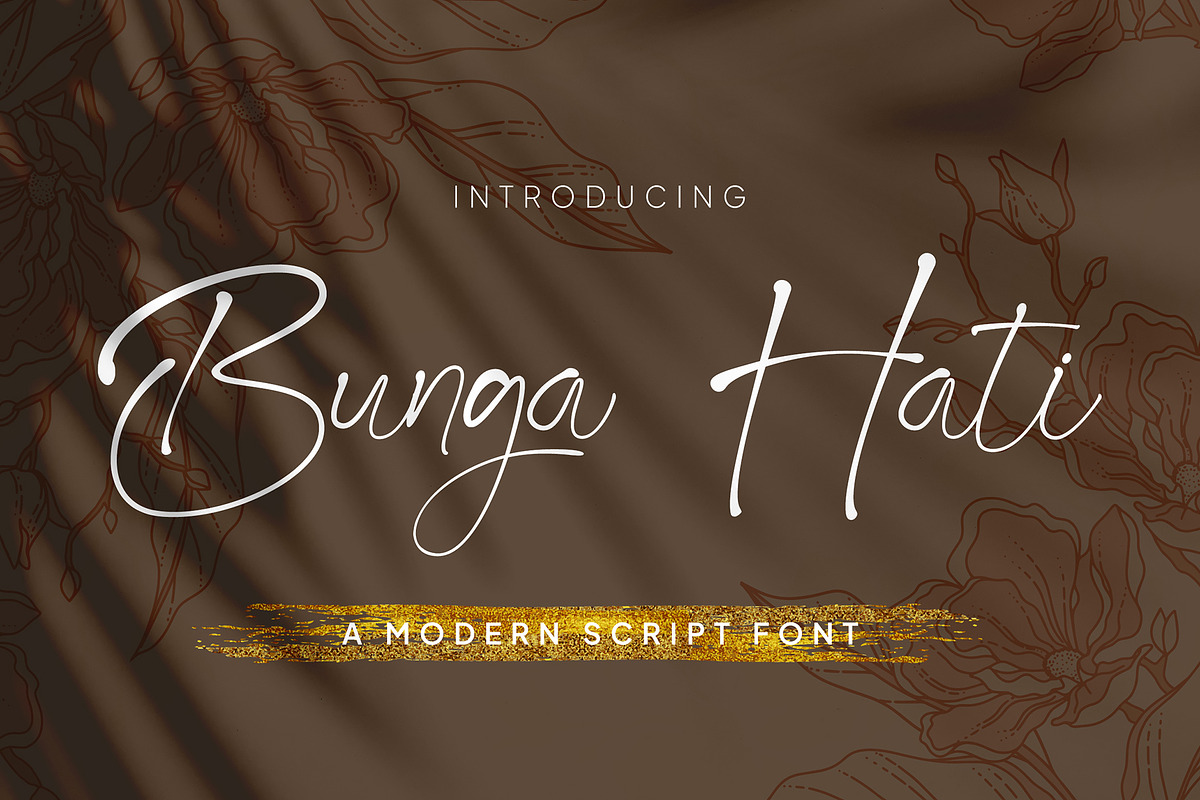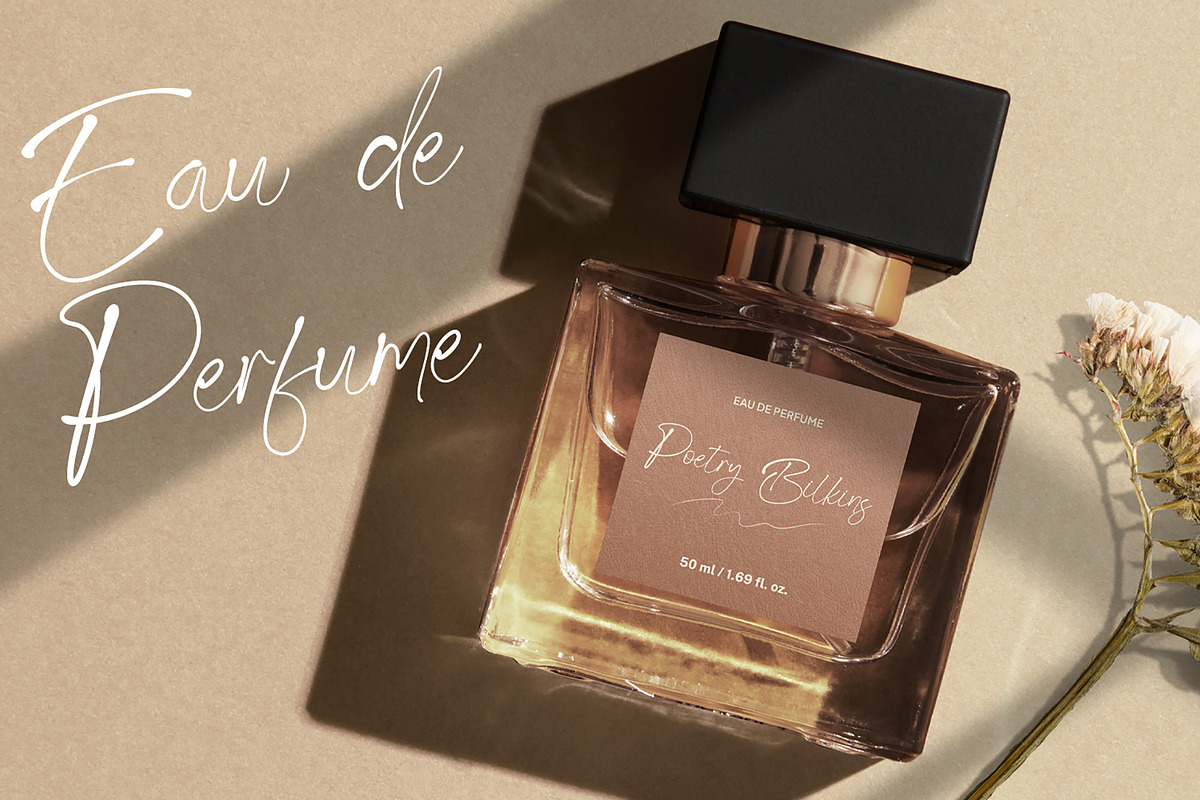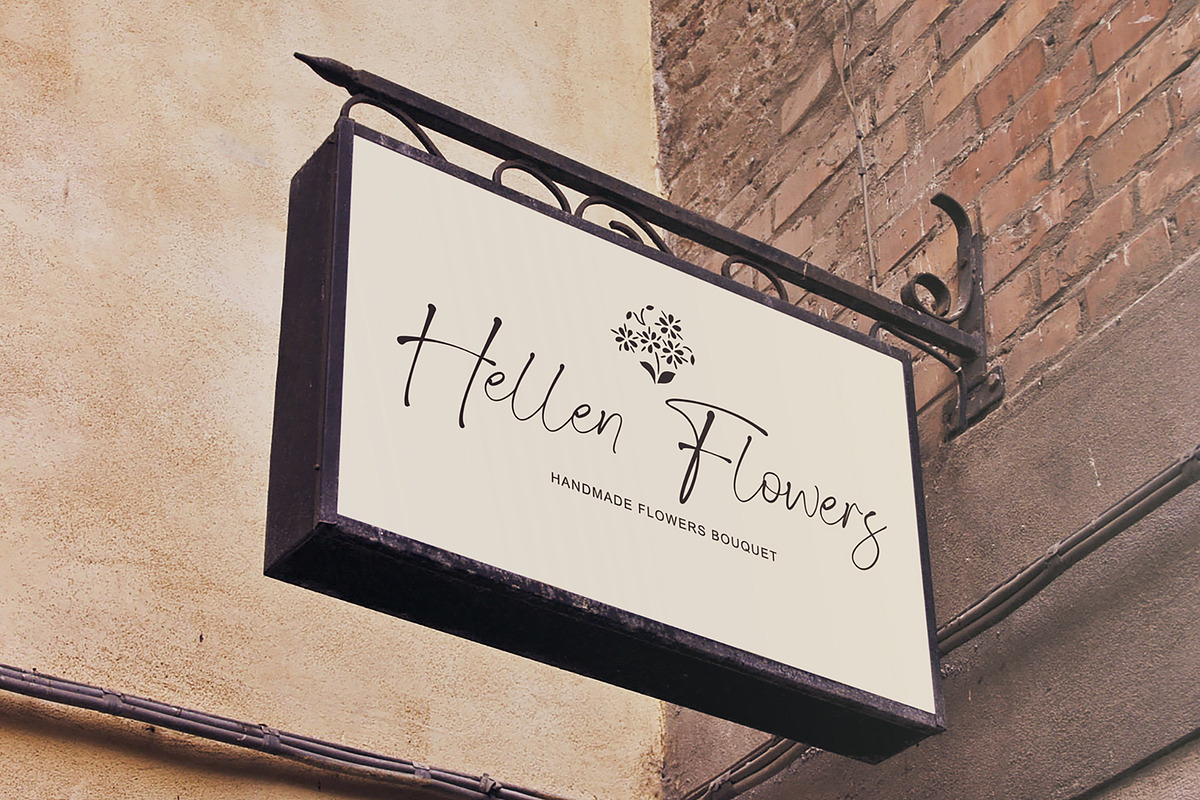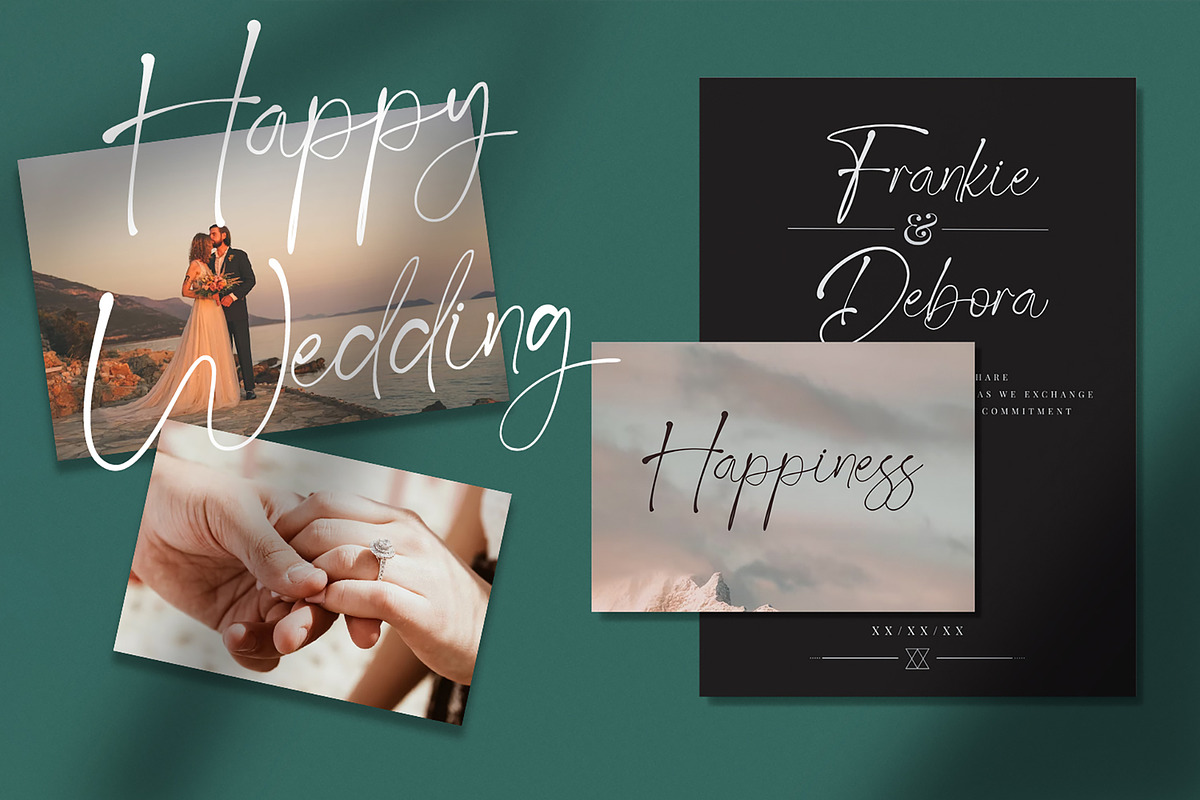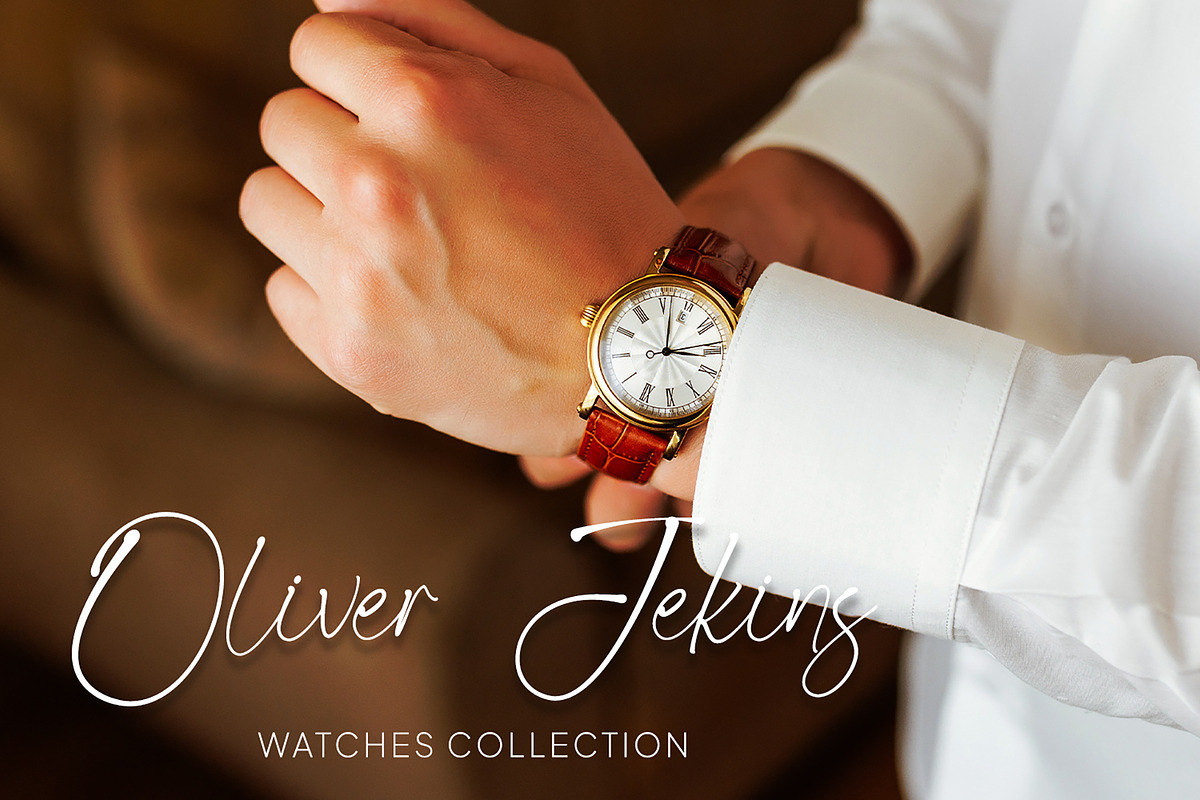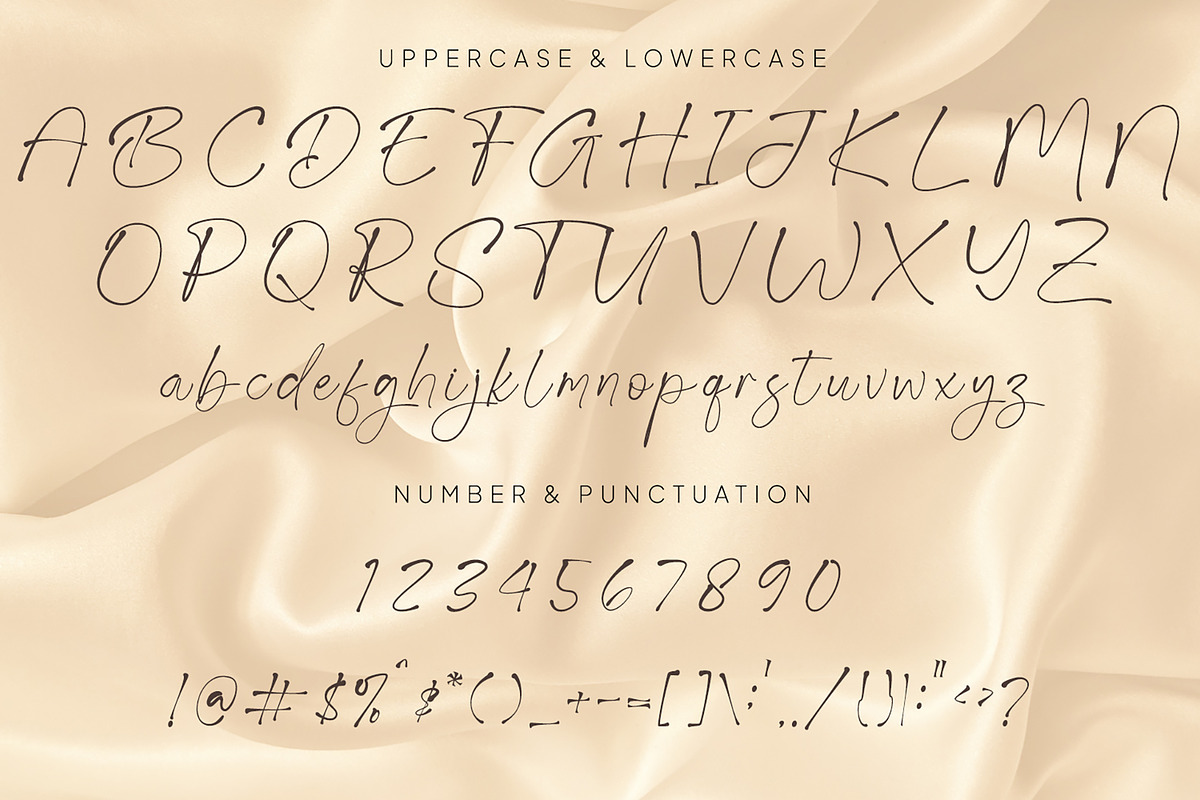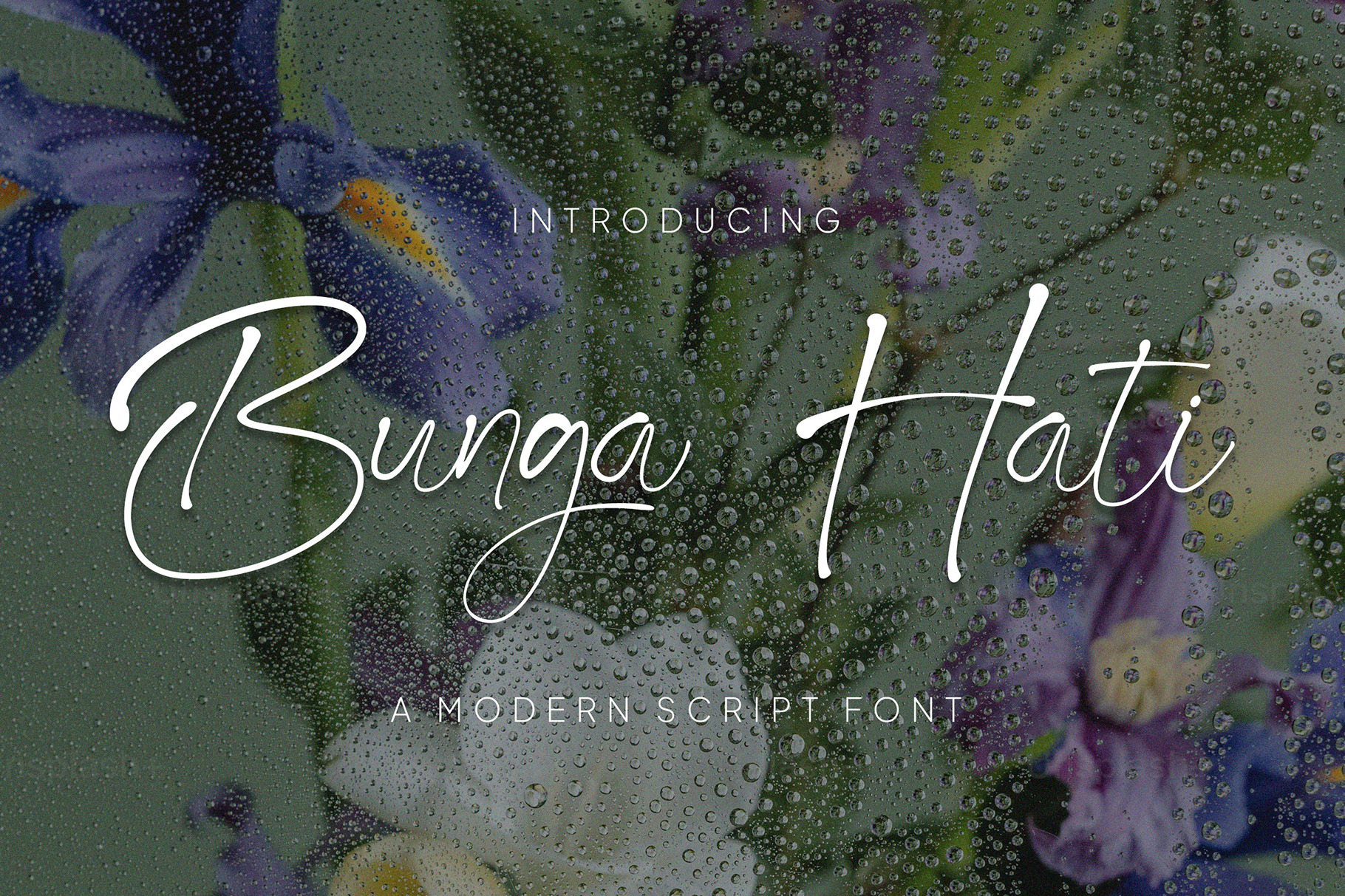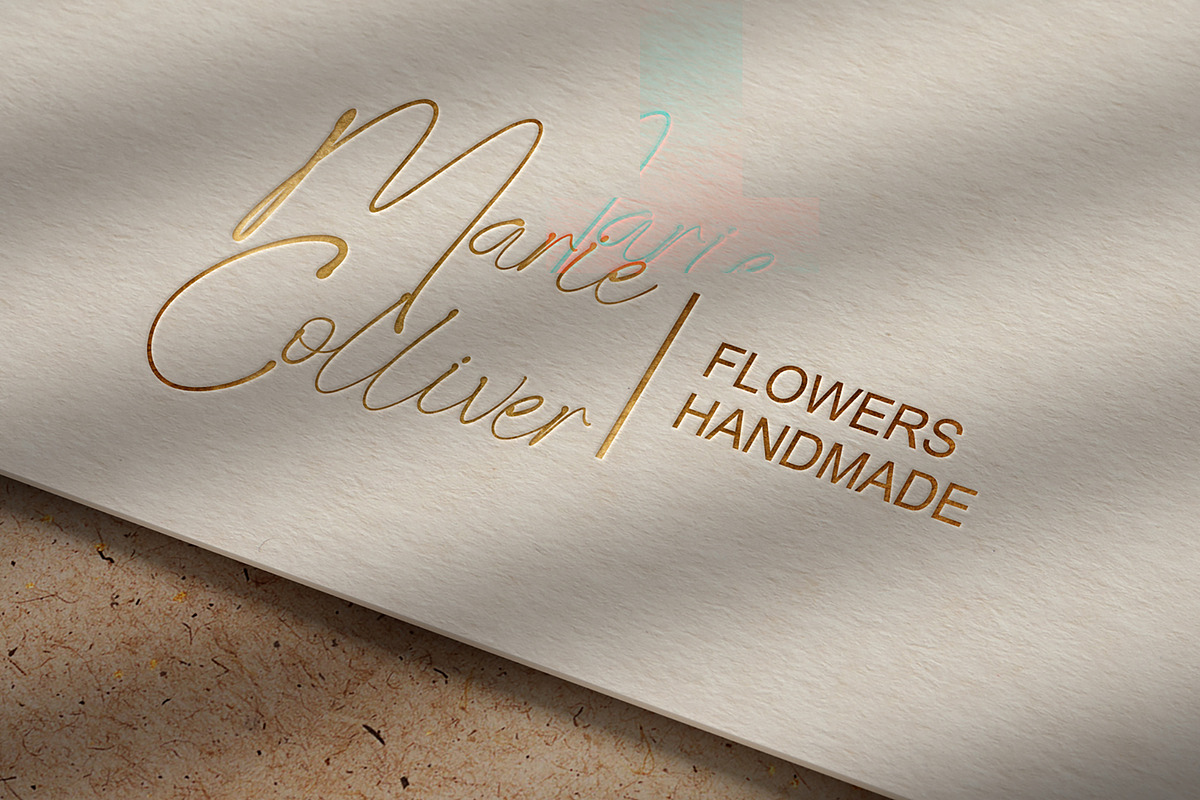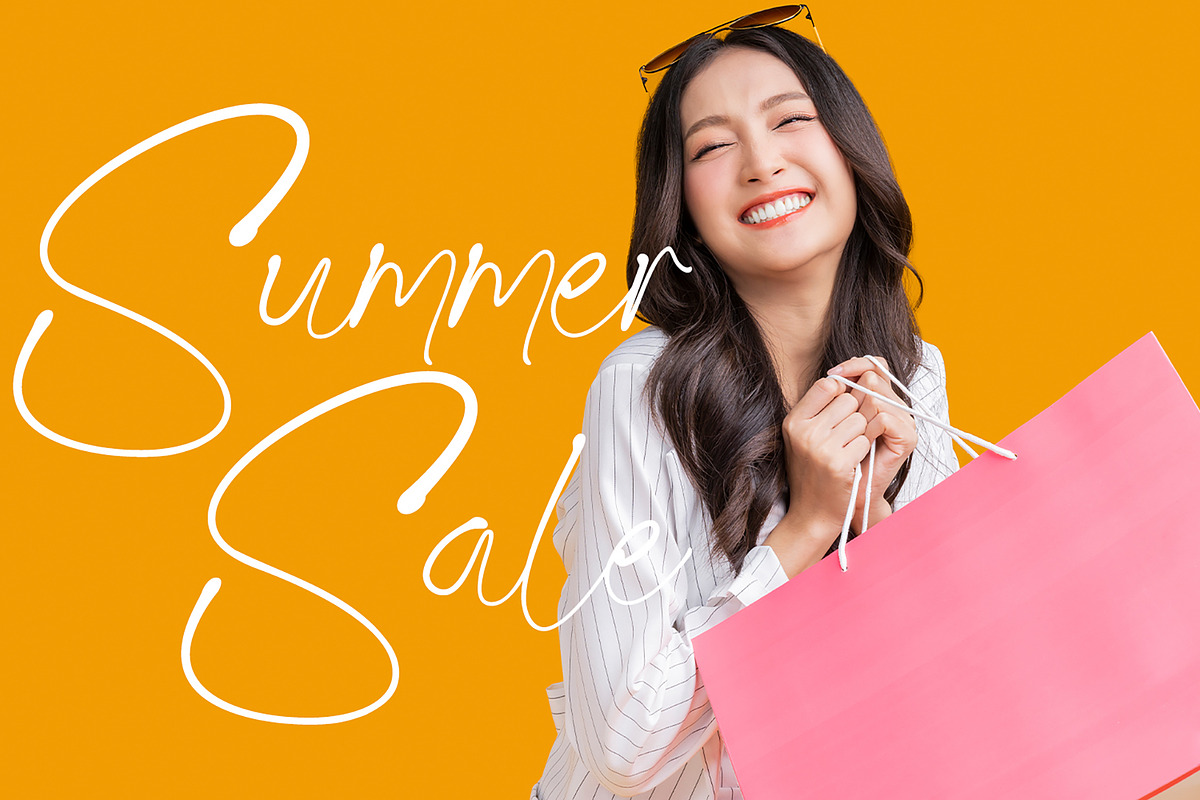
Bunga Hati - Signature Script Font
Romantic, Modern, Aesthetic, Fancy, & Premium - Handwritten Signature Script Font
Perfect for Logotype, brand logo, apparel design, clothing, fashion, creative industry, signature, headline/title on poster, brochure, packaging, wedding invitation, quotes, magazine, social media etc.